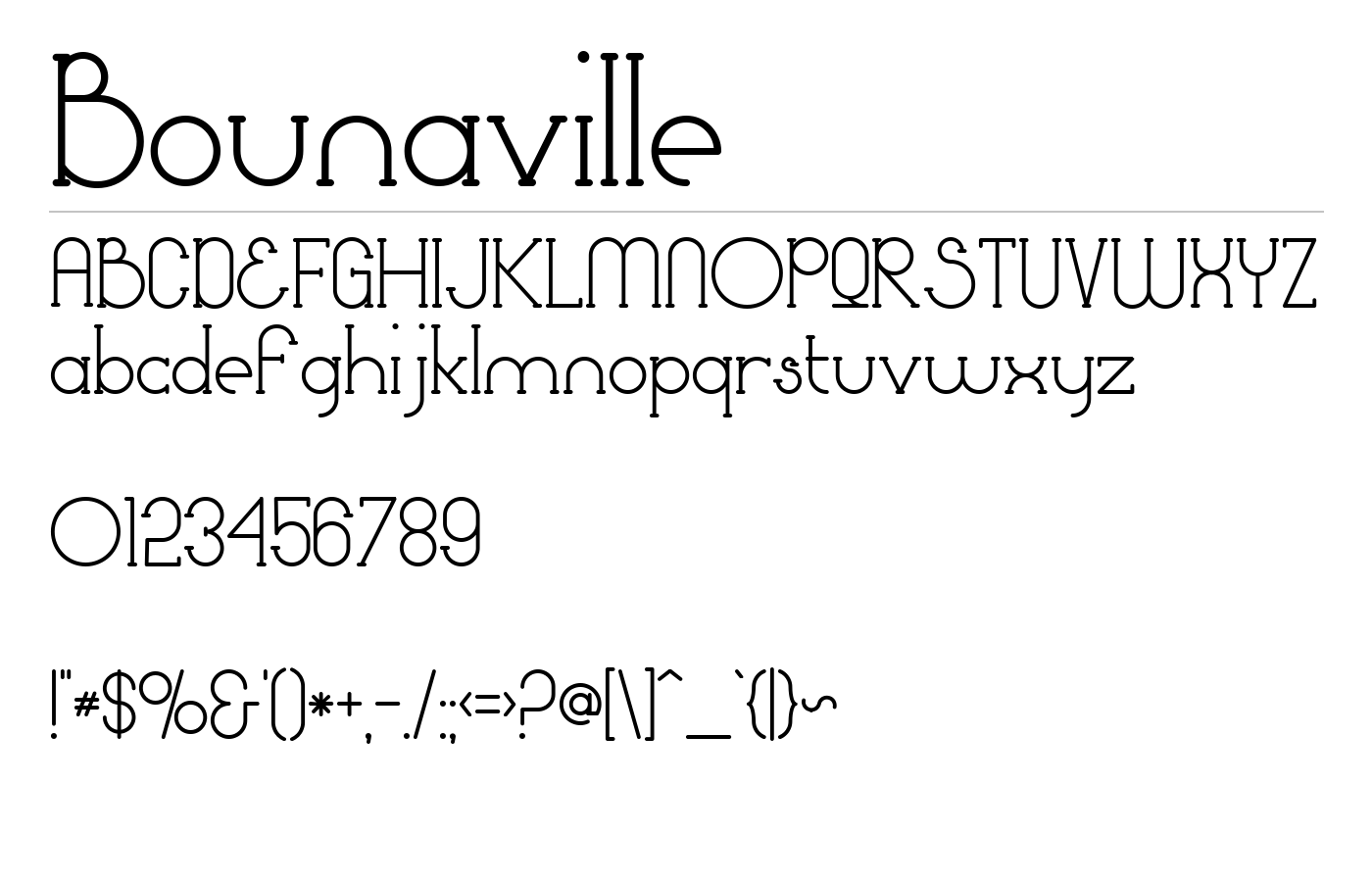
Bounaville is a delicate, modern serif font with a unique, decorative style characterized by thin strokes and rounded terminals that give it a playful yet refined look. Its tall x-height and elegant letterforms make it ideal for creative branding, editorial headlines, and projects that want to convey a sophisticated but approachable personality. This font works best where a distinctive, artistic touch is needed to stand out while maintaining clarity and charm.
Bounaville Font
About Bounaville Font
| Designer | Greataris |